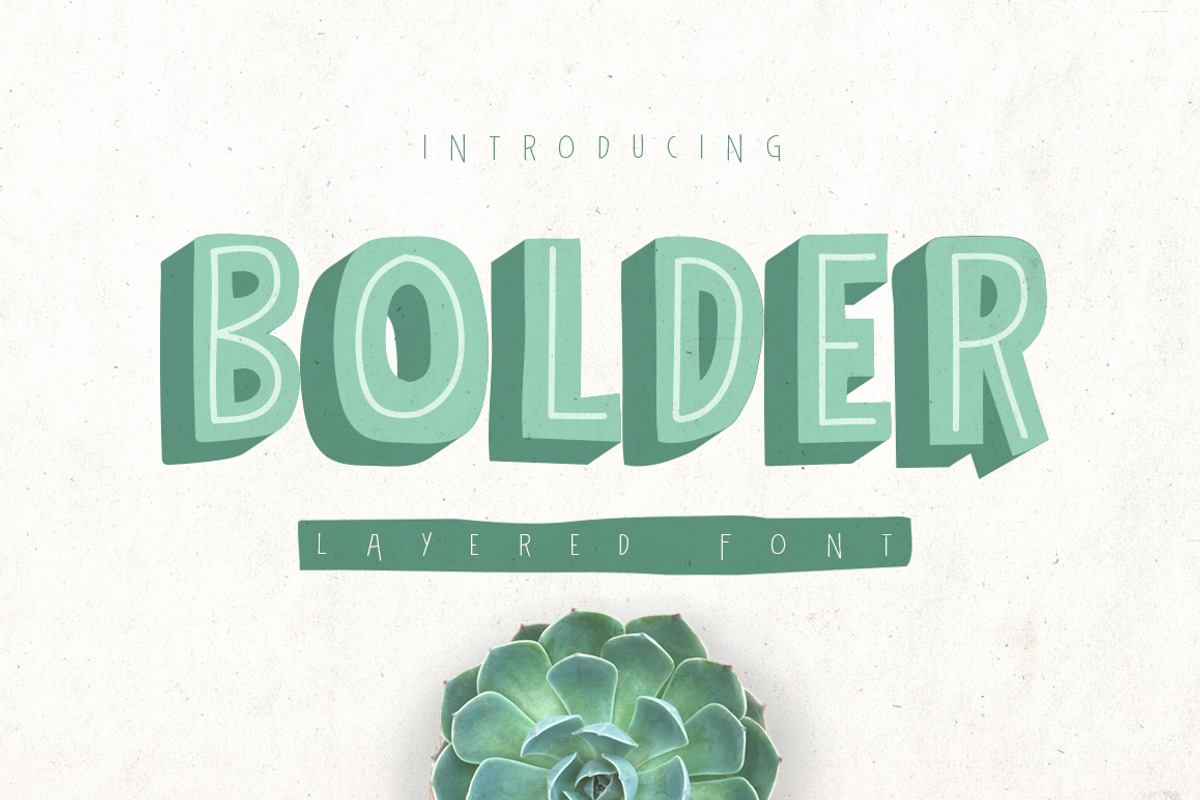
Bolder Layered Font Free Download
Loud, dynamic, and built to stand out, Bolder Layered Font Free Download is a powerful display typeface with a layered design system that gives your text depth and energy. Perfect for posters, banners, event promotions, logos, and bold branding, this font lets you stack styles like shadows, outlines, and fills to create eye-catching custom looks.
Its geometric structure and thick strokes make it highly readable even at large sizes, while the layered options allow for endless creative combinations. Whether you're aiming for a retro comic-book feel or a high-impact modern design, Bolder delivers that punch.